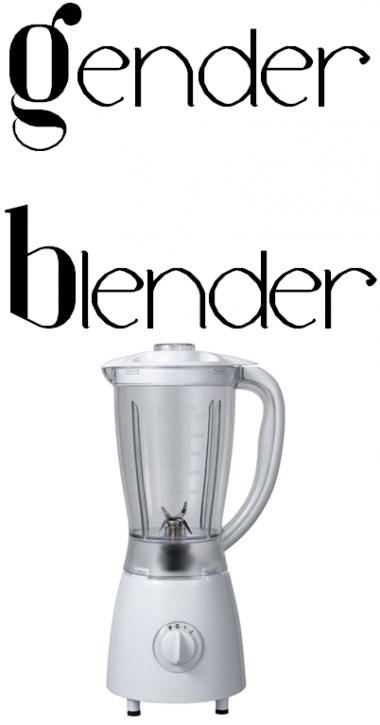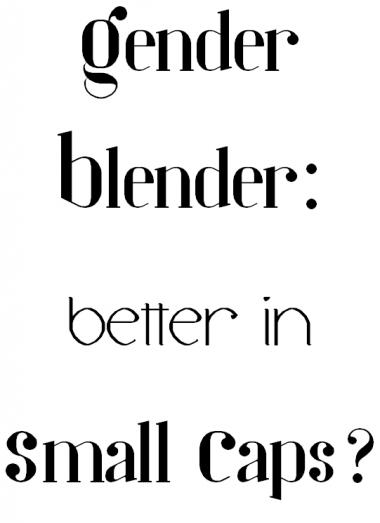
• Uppercase is lowercase Roman forms and lowercase is smaller upright italic forms.
The Uppercase shows tremendous promise. Perhaps the v,w,x and y need to be a bit narrower.
Thank you p2pnut. I realise that the uppercase is the better aspect: this is because I spent the most time on it. I paste the all composites saved in my bricks onto the majority of my fonts, and it was the second thing I did with this one. I could never have gotten the curves as smooth as they are without it. You may not remember, but you have asked me this before...
Once again a worthy font of a top pick in my opinion. You have such a high caliber portfolio that should be commended. keep it up!! 10/10
Really pretty. I hope someday you will make a caps version.
Gender Blenderby Cohnisgone